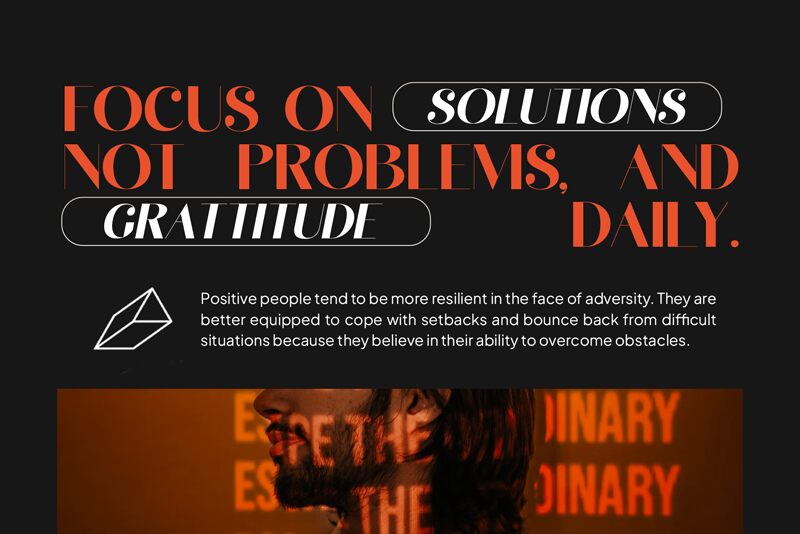
Mirage font by VampStudio is a free sans-serif font that elegantly combines modern sophistication with art deco influences. This sleek, stylish typeface offers stunning high contrast and rounded details, making it dramatic and eye-catching. Ideal for historical nods to early 20th-century typography yet perfect for contemporary applications, Mirage adds an elegant touch to any design project.
Ideal uses include fashion branding, editorial designs, posters, packaging, book covers, and logos. This versatile font also works well in websites, social media graphics, business cards, and product labels, where a touch of refinement is desired.